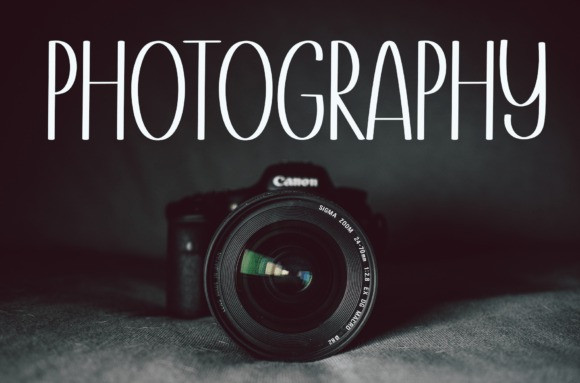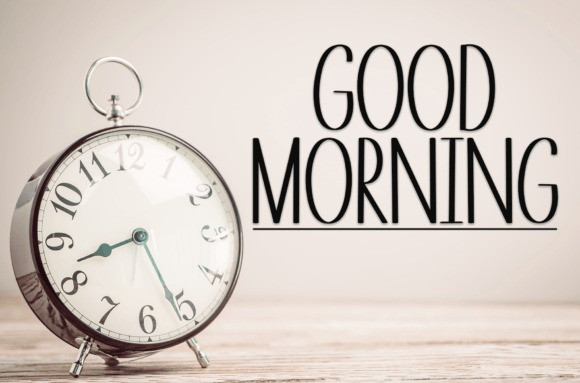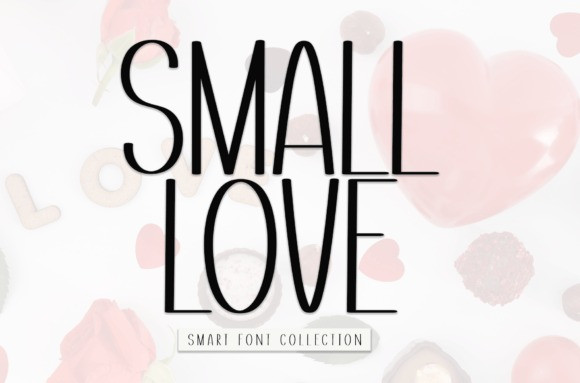
Small Love Font
Small Love Font is a neat and beautiful handwritten font described by an elegant touch, perfect for your favorite projects. Fall in love with its incredibly distinct and timeless style, and use it to create spectacular designs!